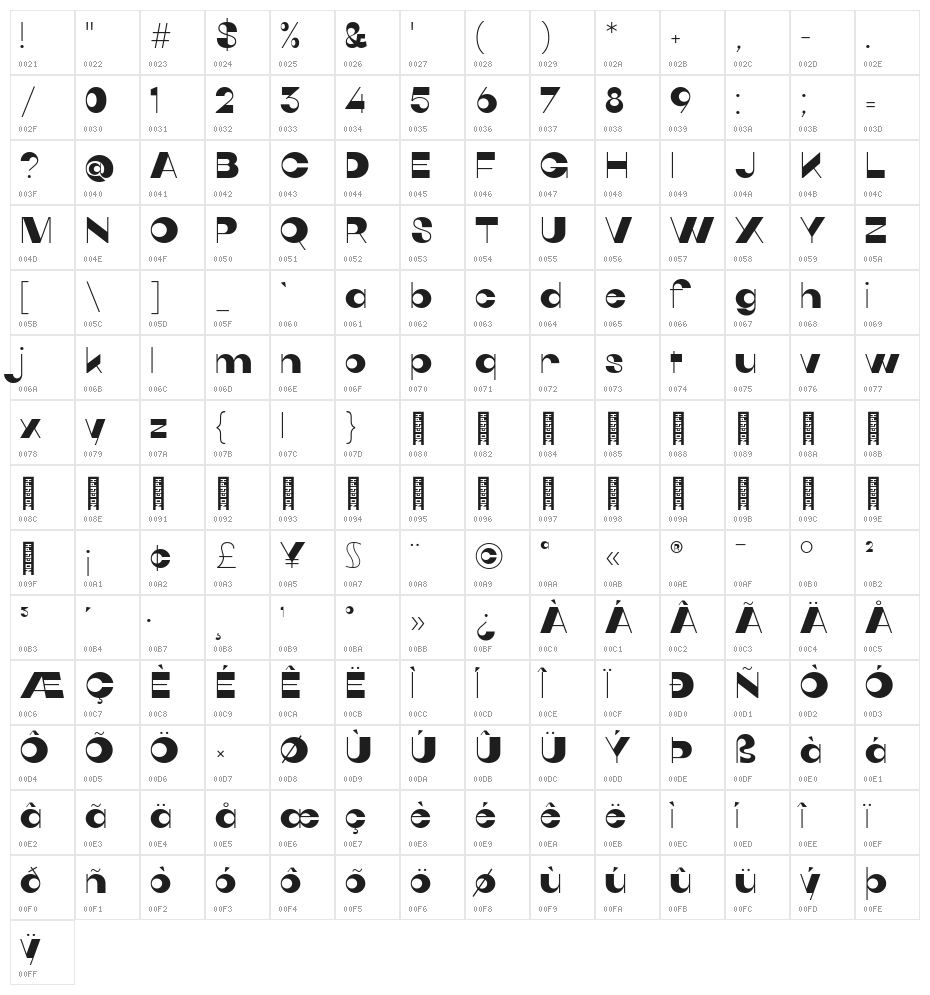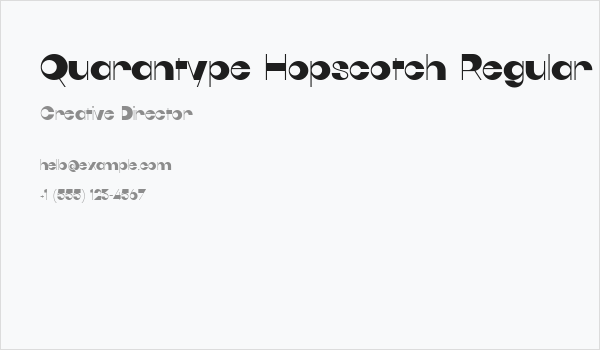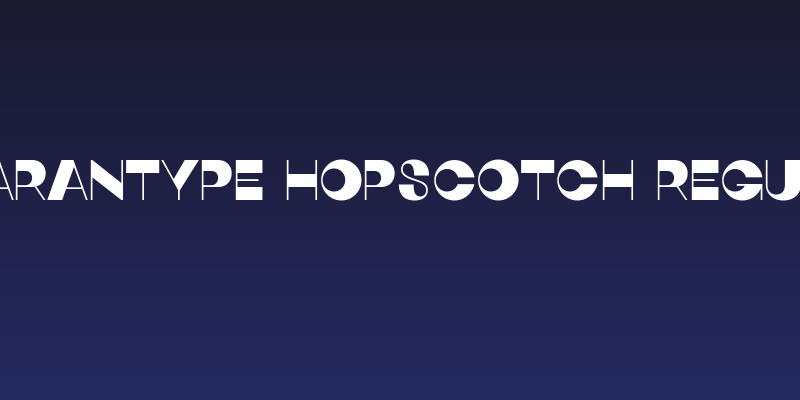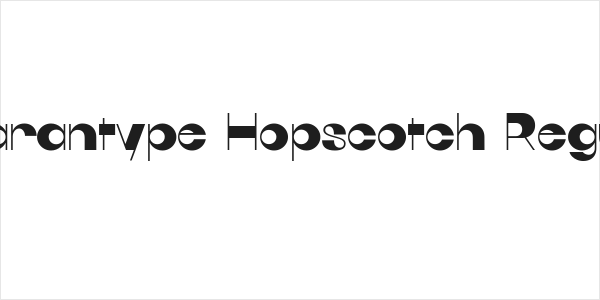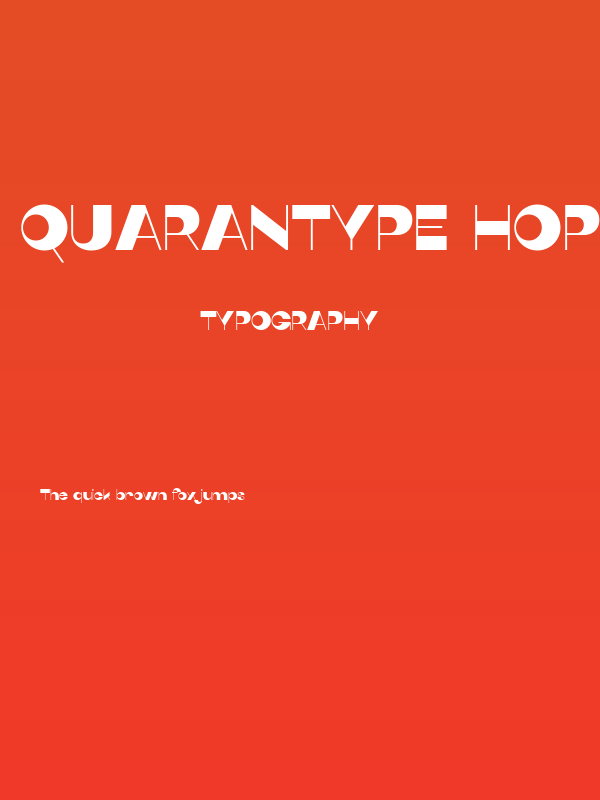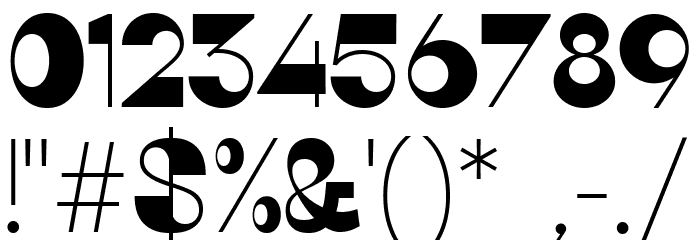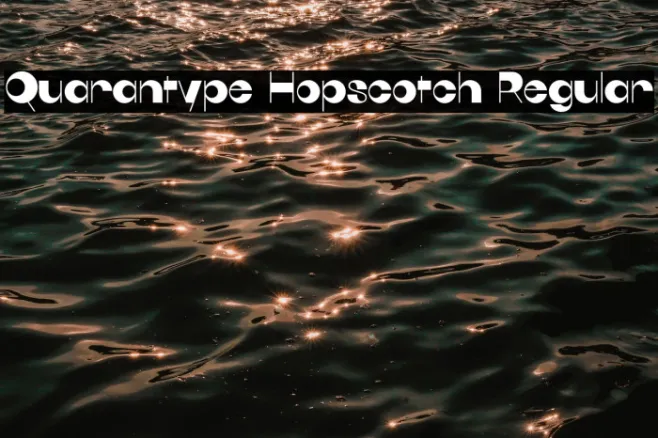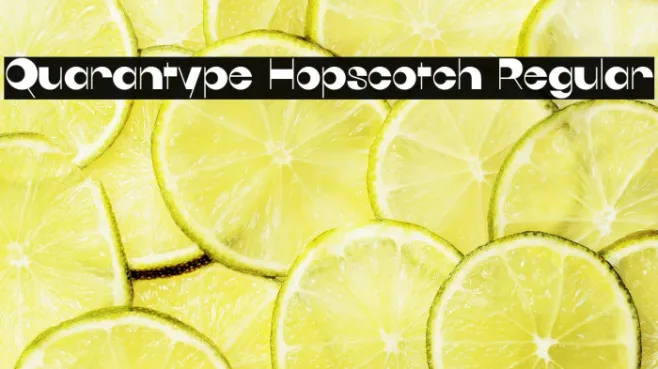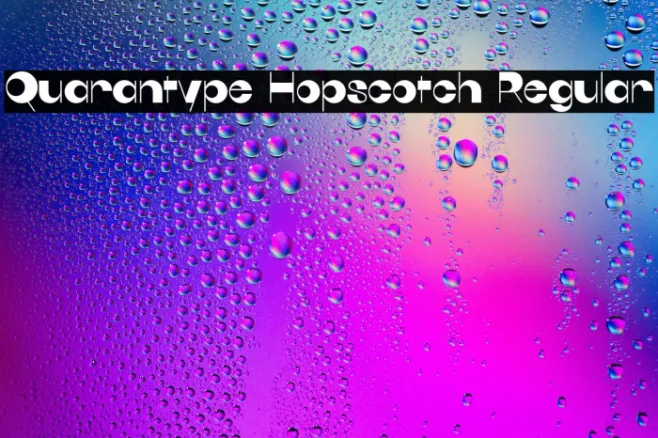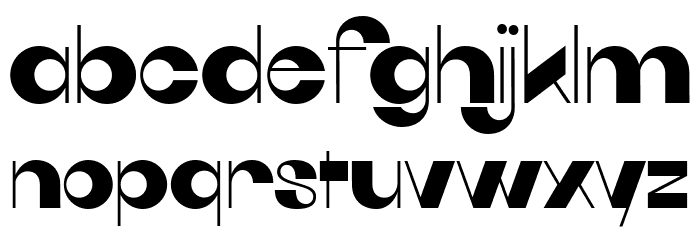
Quarantype Hopscotch Regular Font
Quarantype Hopscotch Regular Description
This font features a bold and geometric design with a modern flair. The uppercase letters are characterized by strong, angular lines and unique cutouts that create a sense of movement and dynamism. The lowercase letters maintain a similar geometric style, with rounded forms that contrast the sharpness of the uppercase. Numbers are bold and consistent with the overall style, ensuring readability while maintaining the font's distinct aesthetic. Special characters are designed to complement the letters, featuring similar geometric cuts and bold strokes. This font is ideal for projects that require a contemporary and eye-catching look.